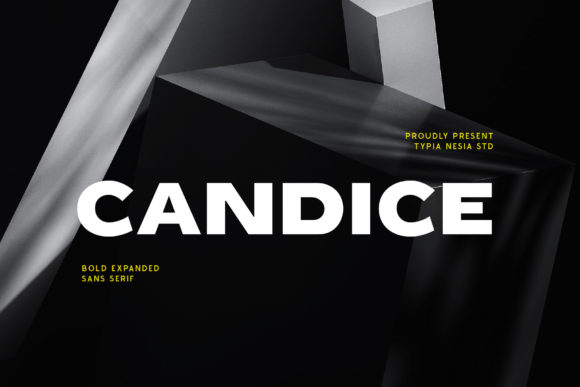
From e-sports branding to supercar advertising, Candice brings an intense, futuristic energy that fits perfectly in industries where speed, competition, and excitement are key.
1. What is the Candice Font?
The Candice Font is a modern sans-serif display typeface with a distinctly sporty, tech-inspired design. Its bold uppercase letters, clean geometry, and aggressive styling make it perfect for headlines, logos, and branding where power and style are essential.
Unlike regular sans-serifs, Candice’s structure is built to stand out in gaming, racing, and athletic branding. It’s not here for subtlety — it’s here to dominate the visual field.
2. Key Features of Candice Font
Bold & Attention-Grabbing – Perfect for logos, banners, and poster titles.
Sporty & Futuristic Aesthetic – Fits perfectly in gaming and racing designs.
Clean Geometric Shapes – Modern, easy-to-read letterforms.
Versatile for Branding – From gyms to tech companies.
Optimized for Display Use – Works best for large-scale designs like billboards, covers, and digital hero images.
3. Where to Use Candice Font
Because of its high-impact style, Candice is ideal for projects that demand visibility and modern flair.
Sports Branding
Perfect for athletic teams, sports gear companies, or event titles where strength and energy are important.
E-Sports & Gaming
Gaming stream overlays, team logos, tournament posters — Candice was made for the competitive gaming scene.
Fitness & Gym Branding
Strong typography is a must for gym identities, and Candice delivers the powerful vibe fitness brands love.
Automotive & Racing
Supercar branding, motorsport posters, or racing event graphics can benefit from Candice’s dynamic design.
Event Promotions
Concerts, festivals, and special events that need bold, unforgettable typography.
4. Pairing Candice Font with Other Typefaces
Candice is a bold display font, so pairing it with a clean, minimal font for body text creates balance. Here are some excellent matches:
7. Tips for Using Candice Font Effectively
Candice is a big, bold display font, so you’ll get the best results by using it strategically.
Use in Headlines, Not Paragraphs – Keep it for titles and key visual text.
Pair with Minimal Graphics – Let the font do the heavy lifting.
Play with Color Contrast – Bold fonts shine against high-contrast backgrounds.
Use in All Caps for Maximum Impact – It enhances the sporty feel.
8. Industries That Benefit from Candice Font
Gaming & Streaming – Twitch banners, YouTube thumbnails, team branding.
Sportswear Brands – Logo marks, apparel labels, event sponsorships.
Event Marketing – Flyers, posters, stage backdrops.
Tech Startups – Futuristic branding with a modern edge.
Motorsport – Race numbers, car decals, event tickets.
9. Alternatives to Candice Font
If you like Candice but want to explore similar styles, try:
Bebas Neue – Tall, bold sans-serif with a clean edge.
Ethnocentric – Futuristic and sharp for tech and racing.
Oswald – A versatile bold sans-serif for headings.
Impact – Heavyweight and commanding, perfect for large-scale prints.
Final Thoughts
The Candice Font isn’t just a typeface — it’s a visual powerhouse for modern, high-energy branding. Its bold shapes, futuristic vibe, and athletic personality make it perfect for industries that thrive on excitement and adrenaline.
Whether you’re building a gaming team identity, launching a fitness brand, or promoting a racing event, Candice delivers the visual impact you need to make a strong, lasting impression.